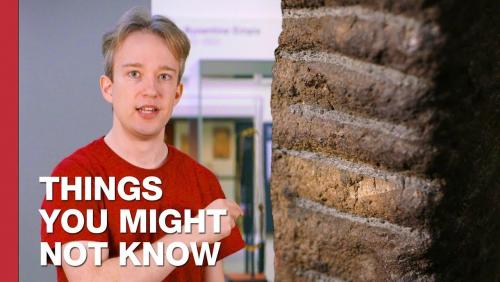
Tom Scott: A Space doesn’t have to be a Space
᚛ᚈᚑᚋ ᚄᚉᚑᚈᚈ᚜ and ᚛ᚑᚌᚐᚋ᚜
Ogham is an old Irish script made by carving notches into stones. It fell out of use more than a millennium ago—but it's an interesting exception to a linguistics and computer-science rule that I'd never even realised existed. Let's talk about the Ogham Space Mark.